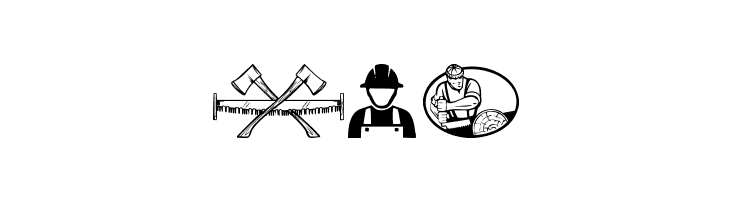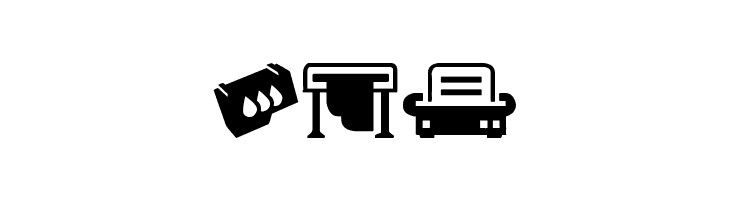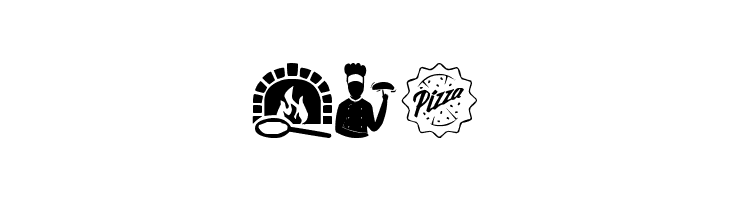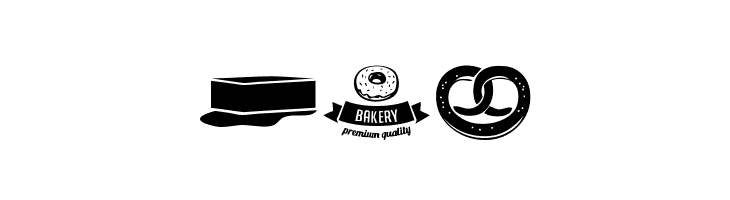
Icon-based font with Parisian motifs and landmarks.
A retro-themed dingbat font with smoking-related illustrations.
A decorative set of diamond and gemstone icons in diverse styles.
Automotive and mechanic-themed icon dingbat font.
Western-themed decorative icon set with bold, detailed silhouettes.
Bold, high-contrast airport-themed pictogram set.
A pictogram font featuring lumberjack and woodcutting motifs.
Icon-based font featuring printing and production symbols.
Playful pizza-themed icon font with bold, decorative glyphs.
A bold, decorative bakery-themed icon set.